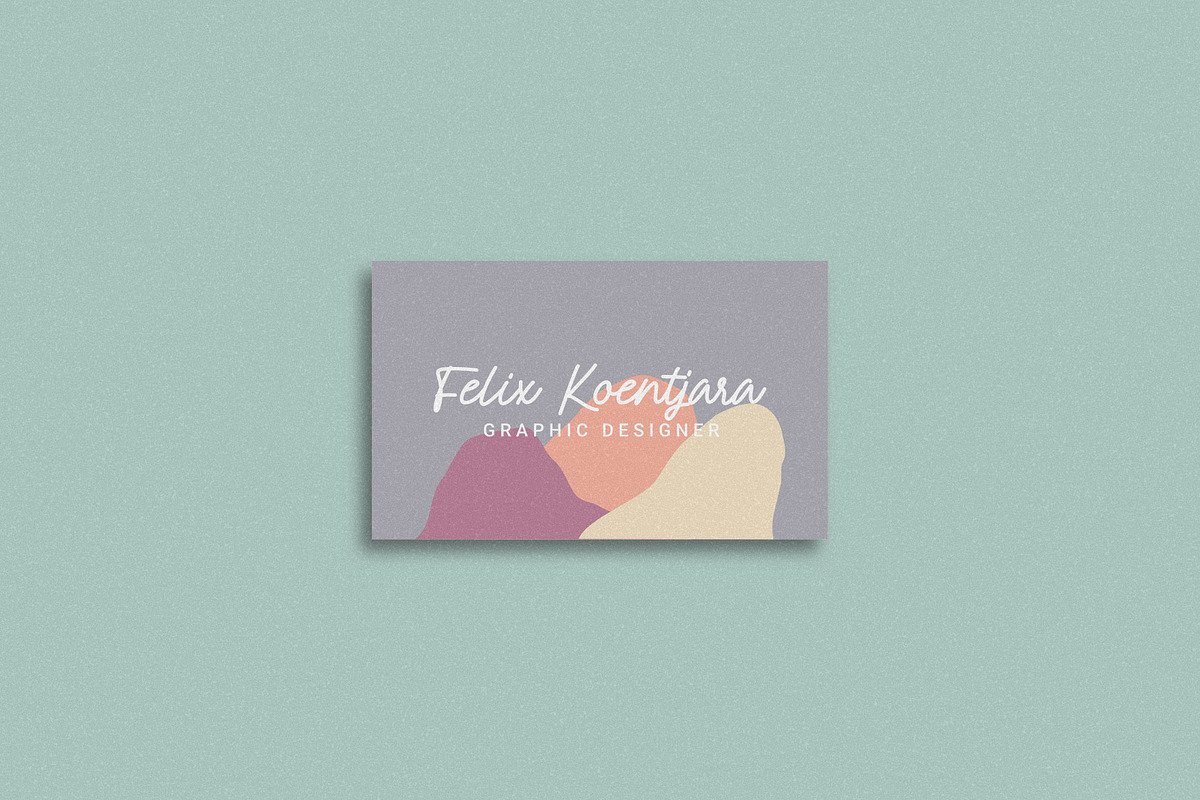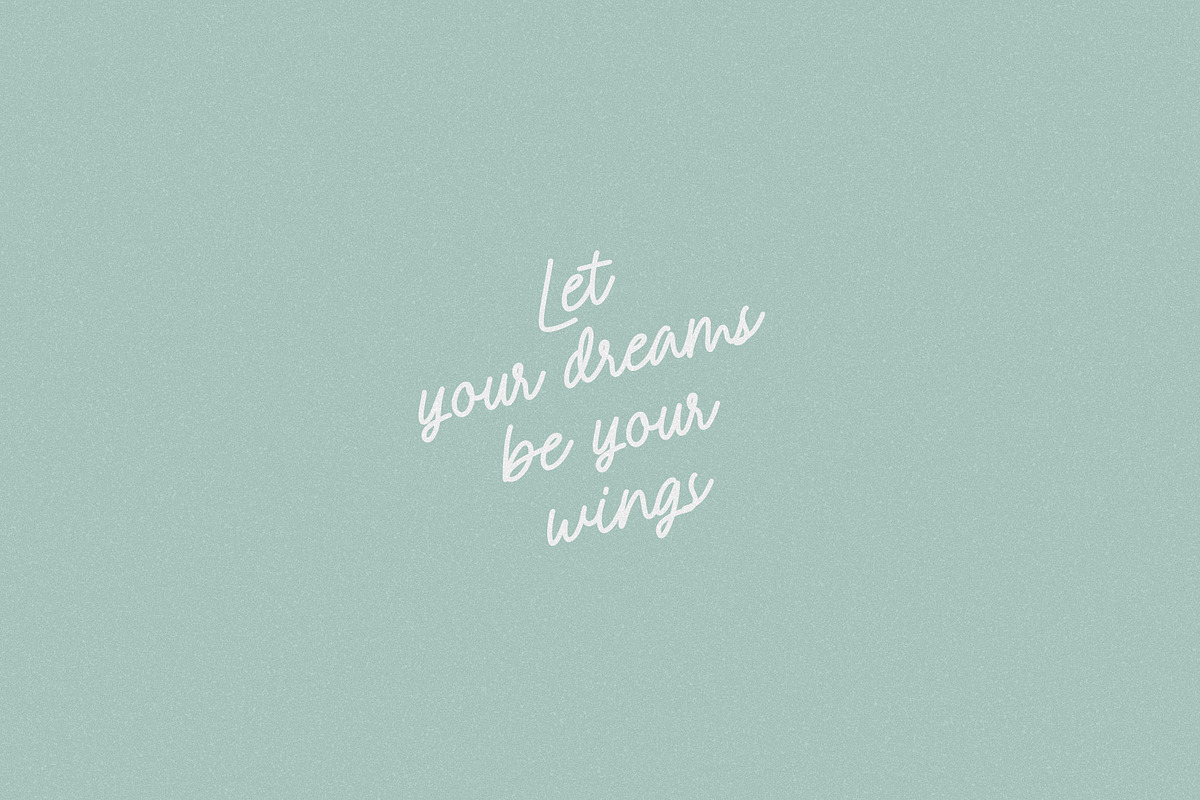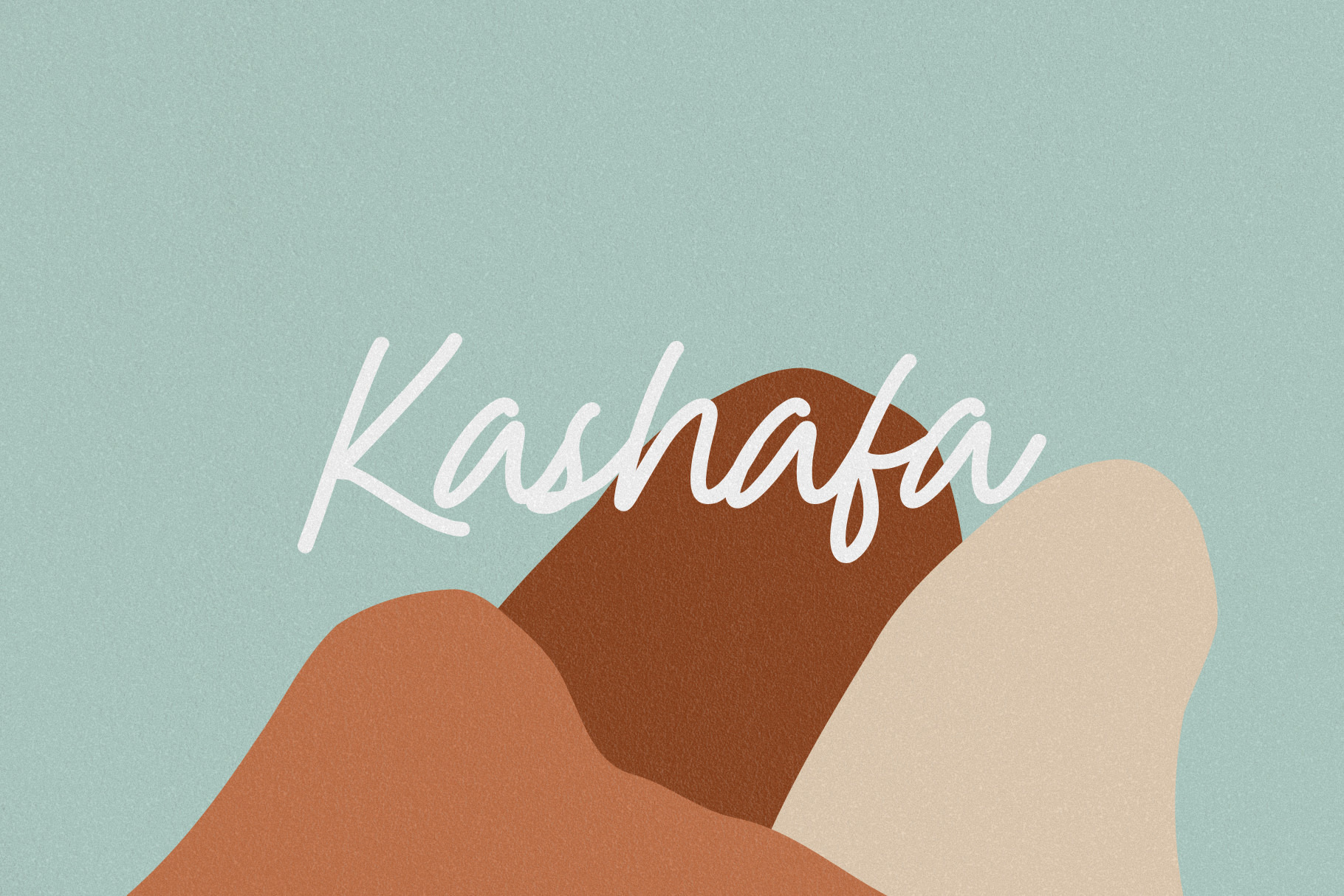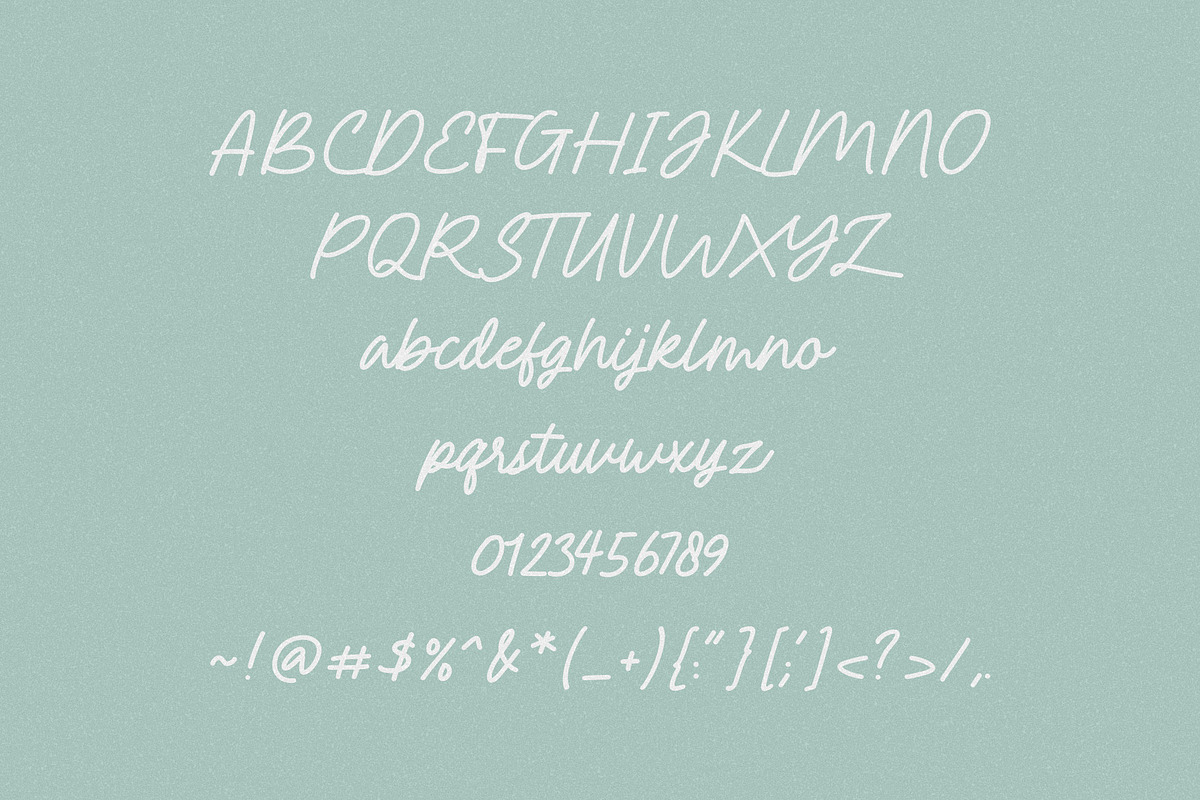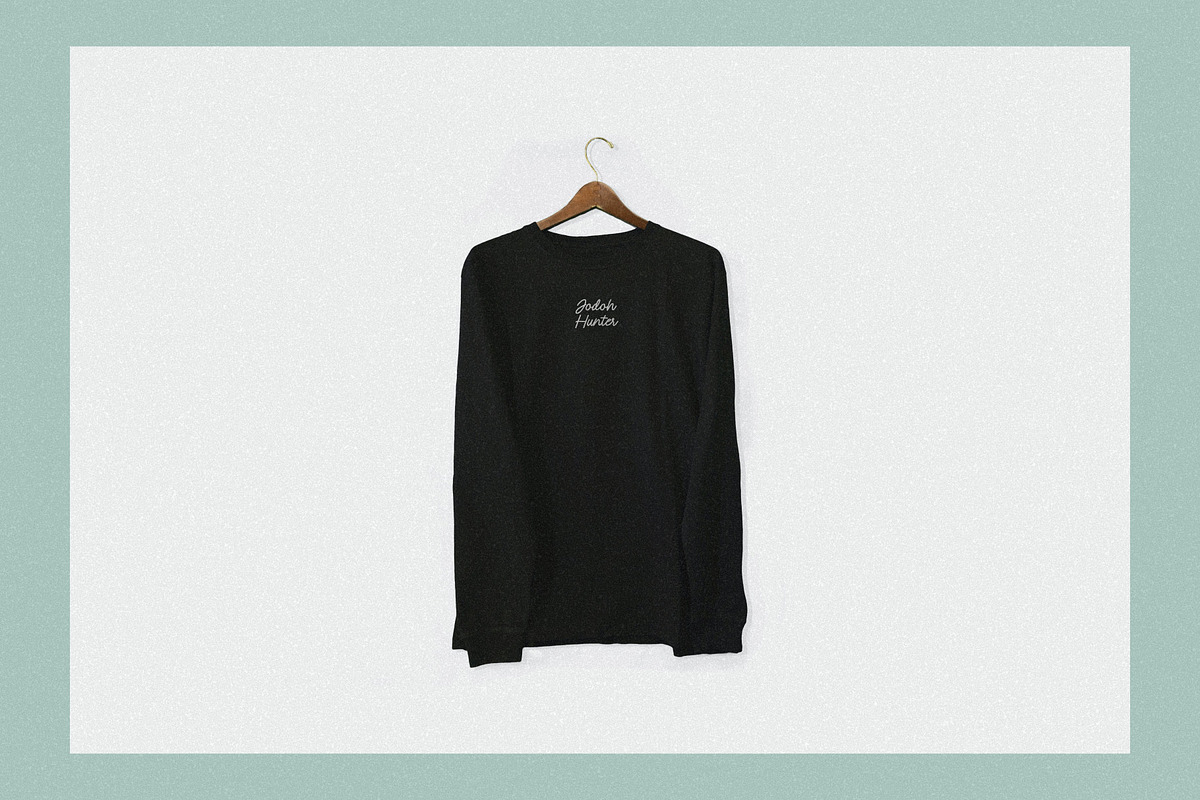
Kashafa | Handwritten Font
Kashafa is a fun handwritten font, that inspires you to create unique and fun designs. Kashafa is great font for quote design, clothing design, wedding invitations, notes, branding, name card and more.